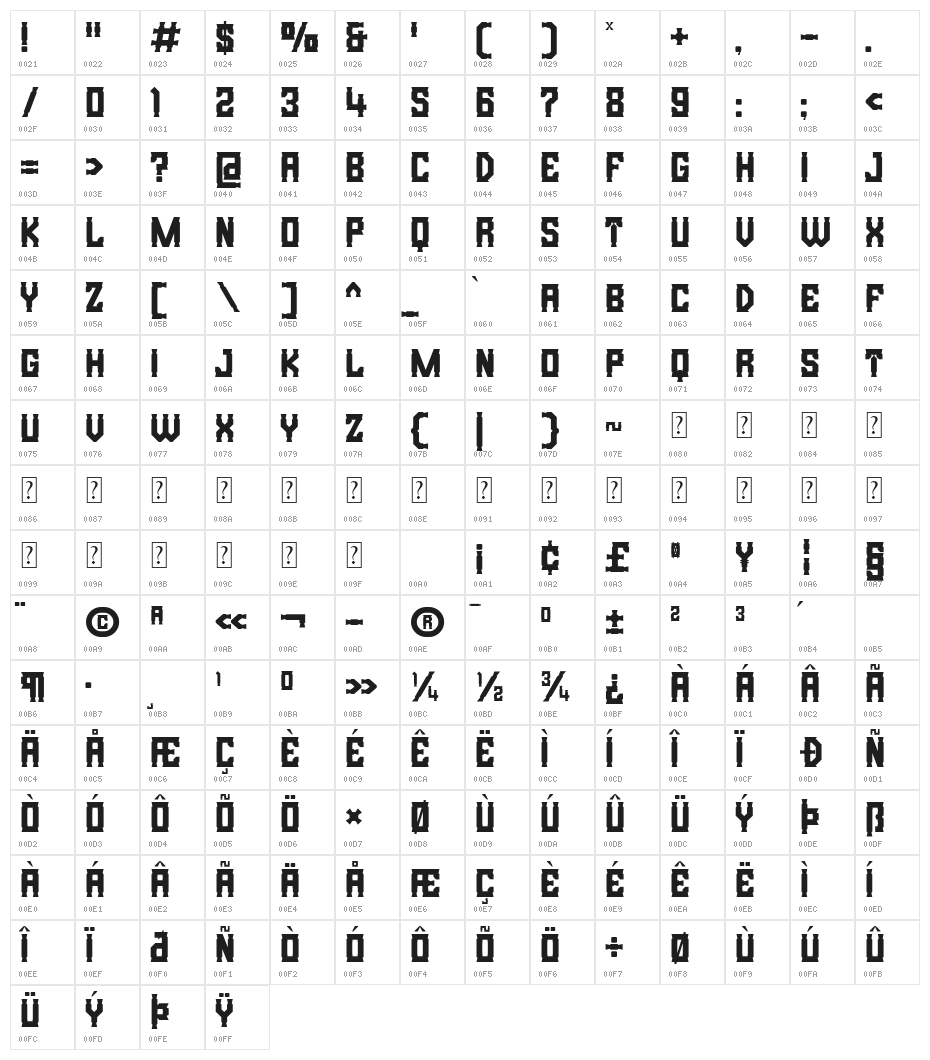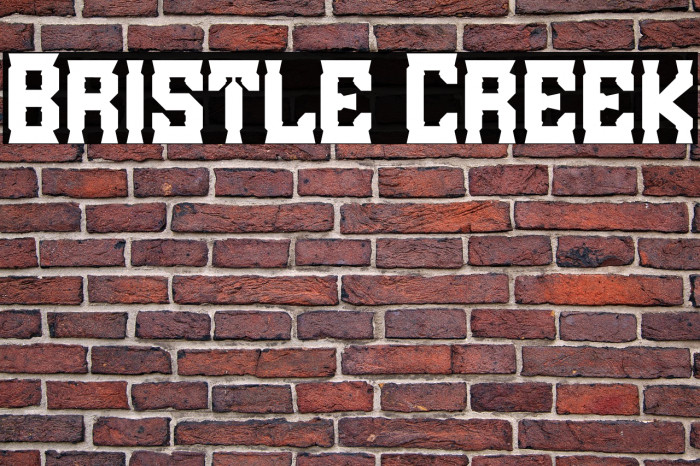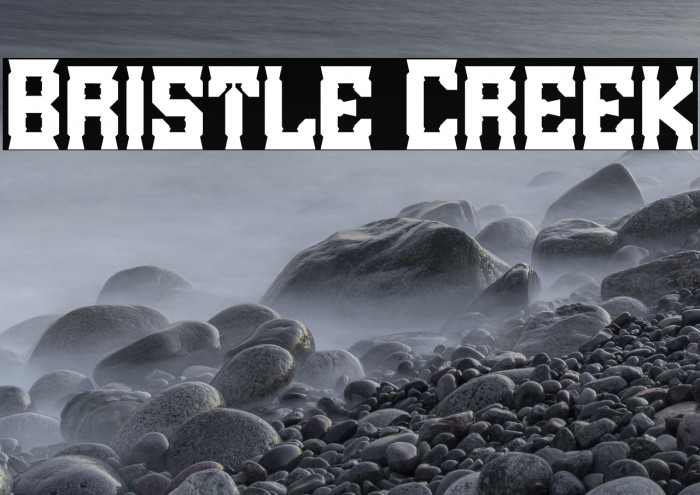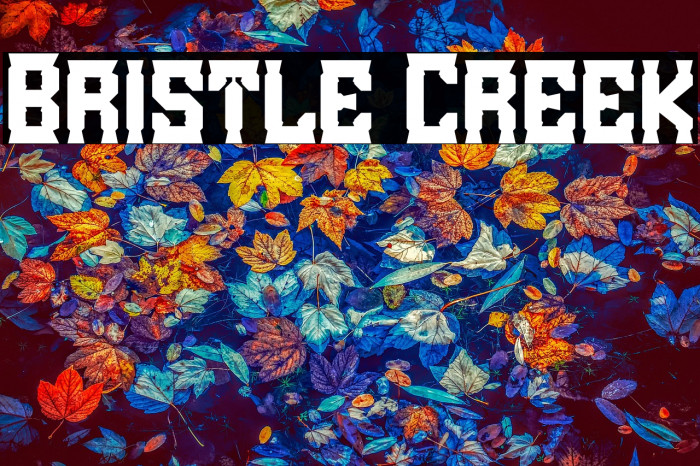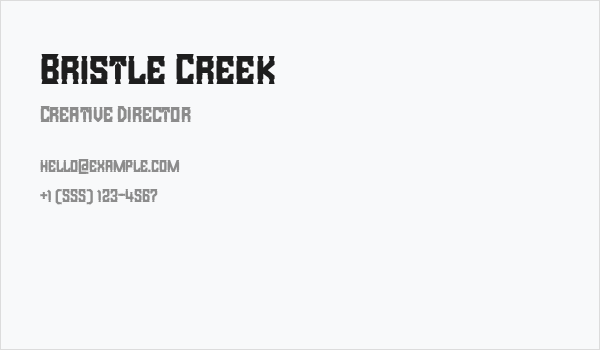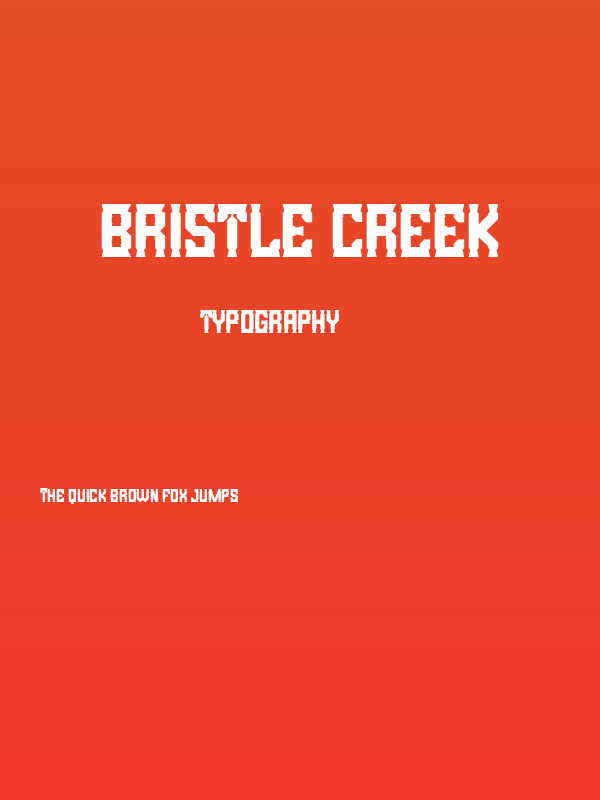
Bristle Creek Font
Bristle Creek Description
This font features a bold, angular design with a strong geometric influence. The characters are constructed with sharp edges and a blocky appearance, giving it a rugged and industrial feel. The uppercase letters are particularly striking, with consistent height and width, while the lowercase letters maintain the same boldness. Numbers and special characters follow the same design principles, ensuring uniformity across all glyphs. The font's unique style makes it stand out, suitable for projects that require a strong visual impact.
| Overall Style | Industrial, Modern |
| Proposed Projects | Ideal for posters, logos, and branding materials that require a strong, impactful presence. |